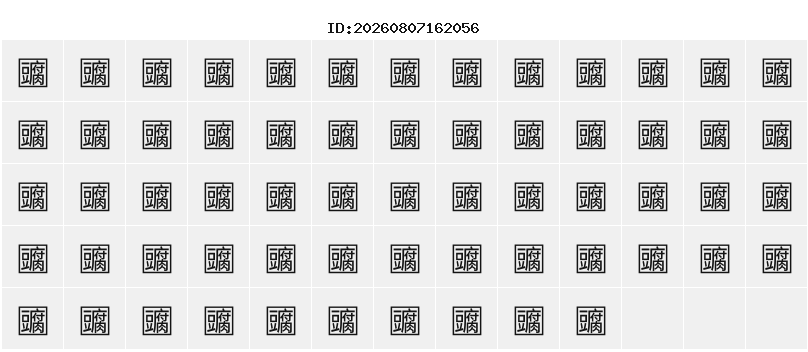
Plangothic P1 Preview
• Font Name: Plangothic P1
• Font ID: Plangothic P1:Version 0.000
• Full Font Name: Plangothic P1
• Character Count: 17808
• Designer: Fitzgerald P. Köeingsegg
• Manufacturer: Plangothic Project
About Plangothic P1.ttf
Plangothic P1.ttf is a modern, elegant sans-serif font designed for ultimate readability and visual harmony. Perfect for branding, headlines, web design, and print materials.